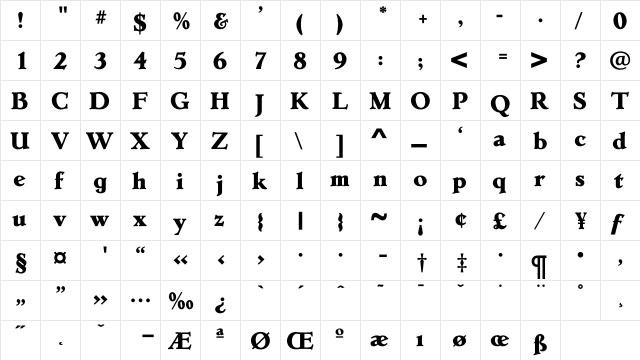
ErasmusExtraBold Regular
Design Context for ErasmusExtraBold Typeface
ErasmusExtraBold takes a measured approach to typography — its balanced proportions and neutral character make it a reliable workhorse for both digital and print work. The heavy weight commands attention and anchors typographic hierarchies.